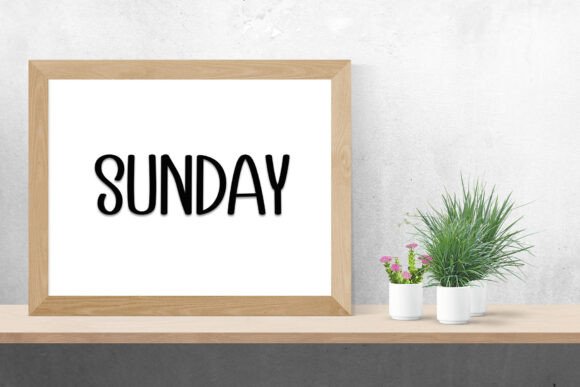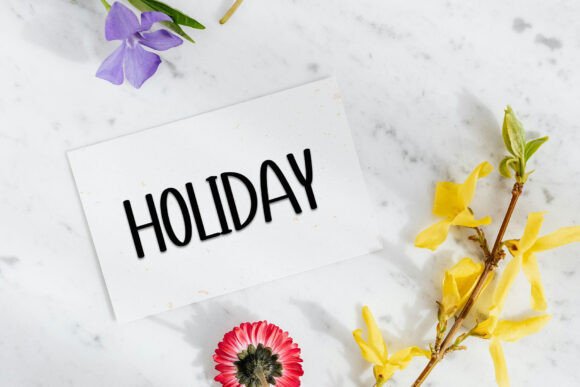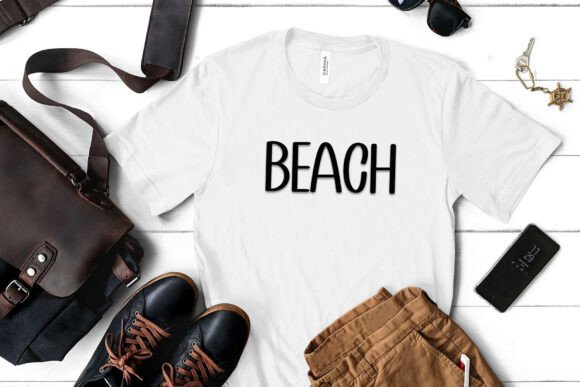
Introduction to Music Notes Font
Have you ever found yourself lost in the rhythm of your favorite song, the melody echoing in your mind long after the music fades away? For designers, that same feeling of creative inspiration can strike when discovering the perfect font to elevate a project. And for those seeking a design resource that exudes elegance and sophistication, the Music Notes Font is sure to hit all the right notes.
This beautiful, handwritten font boasts an unmistakable charm, transporting your designs to a world of timeless refinement. Whether you’re working on a creative project that requires a high-quality font or simply looking to add a touch of whimsy to your next design, the Music Notes Font is an invaluable asset in your toolkit. And the best part? It’s available for free download, making it an accessible choice for designers of all levels.
With its transparent background and intricately crafted details, the Music Notes Font is a versatile design element that can be used in a variety of contexts, from branding and advertising to digital art and craft projects. So why not fall in love with its distinct and timeless style, and let it take your designs to new heights?
Key Features of Music Notes Font
- High-quality, vector-based design resource with transparent background for seamless integration into creative projects.
- Includes a range of music-related symbols and notes, perfect for designing music-related artwork, posters, and flyers.
- Designed with a modern and minimalist aesthetic, making it a great addition to any creative project that requires a touch of music-inspired flair.
Honest Review: Music Notes Font
I recently came across the Music Notes Font, and I must say it’s a fantastic design resource for any creative project that involves music or a musical theme. The font is free to download and offers high quality graphics that can elevate your design to the next level.
- ✨ Transparent background: The font has a transparent background, making it easy to place over any image or background without worrying about pixelation or distortion.
- ✨ Variety of music notes: The font includes a range of music notes in different sizes and styles, giving you plenty of options to choose from for your design.
- ✨ High-quality graphics: The graphics in the font are crisp and clear, making them perfect for use in print or digital designs.
While the Music Notes Font is an excellent resource, there are a few limitations to be aware of. ⚠️ The font only includes music notes and does not include any other musical elements, such as staffs or clefs. Additionally, the font may not be suitable for use in very small sizes, as the graphics may become distorted.
Overall, I’m really impressed with the Music Notes Font. It’s a great addition to any designer’s toolkit, and I’d definitely recommend it to anyone working on a creative project that involves music. With its high-quality graphics and transparent background, it’s a versatile and easy-to-use design resource that can help take your designs to the next level.
Music Notes Font
The Music Notes Font is a versatile design resource that can be used in a variety of creative projects, including:
Music-themed designs, such as posters, flyers, and business cards.